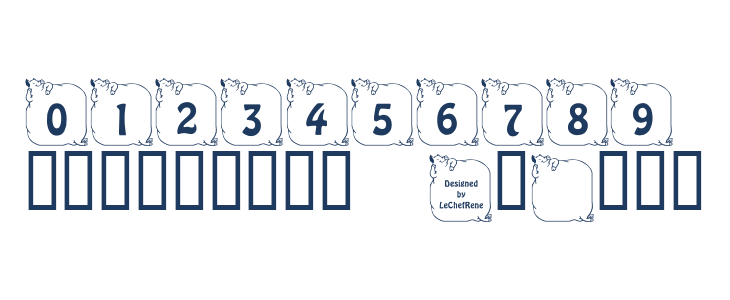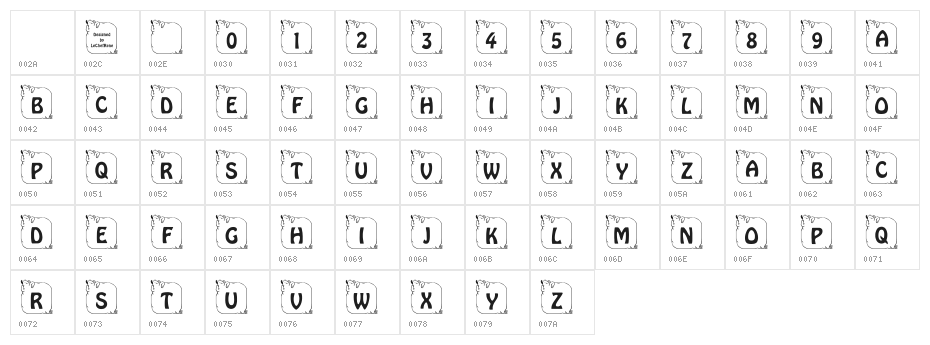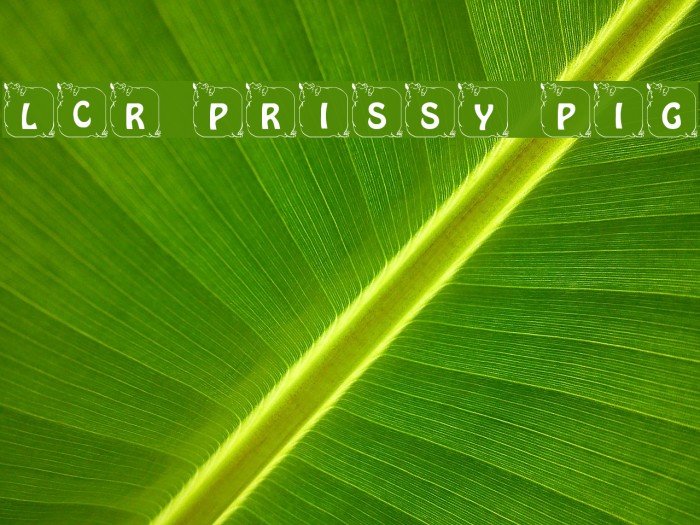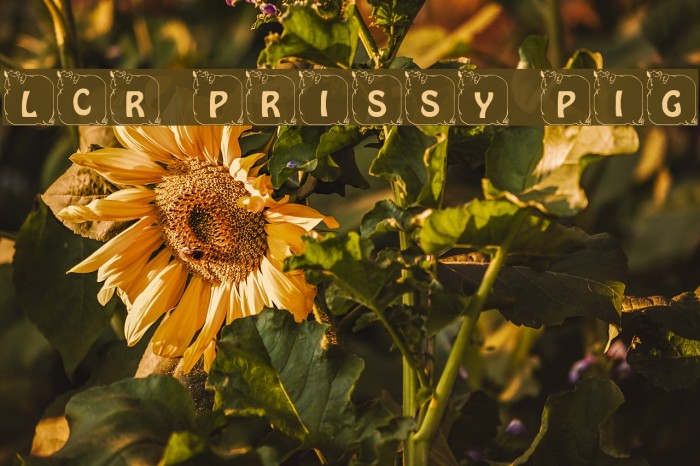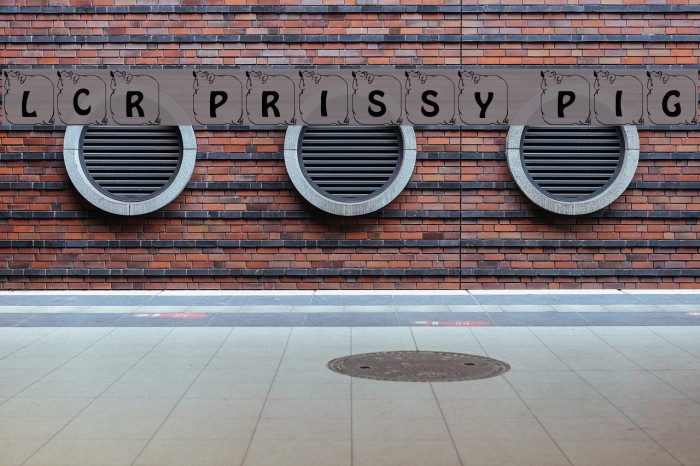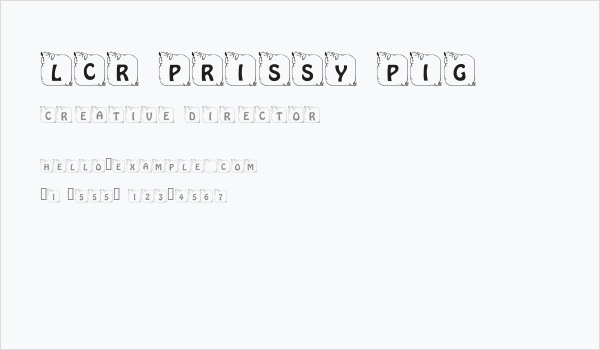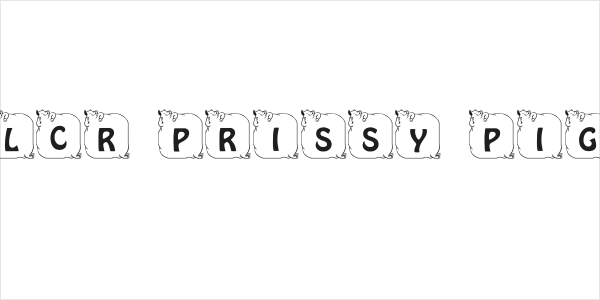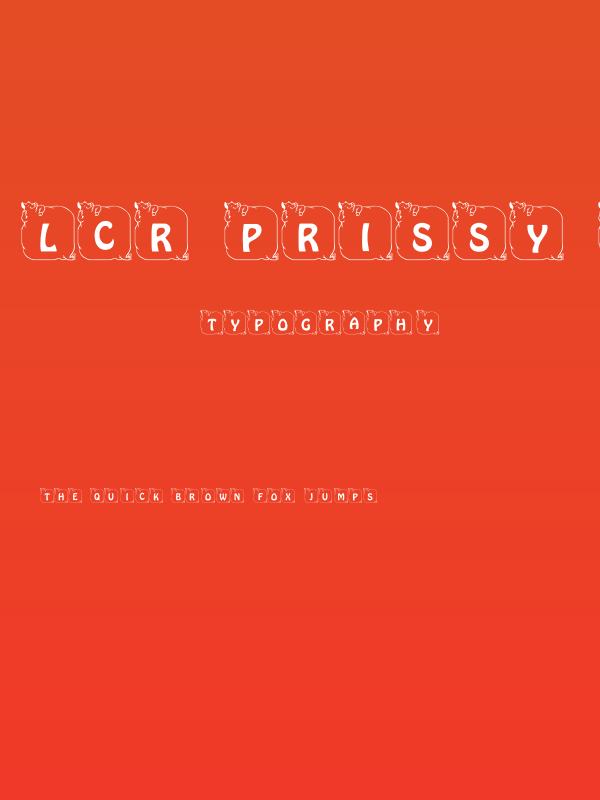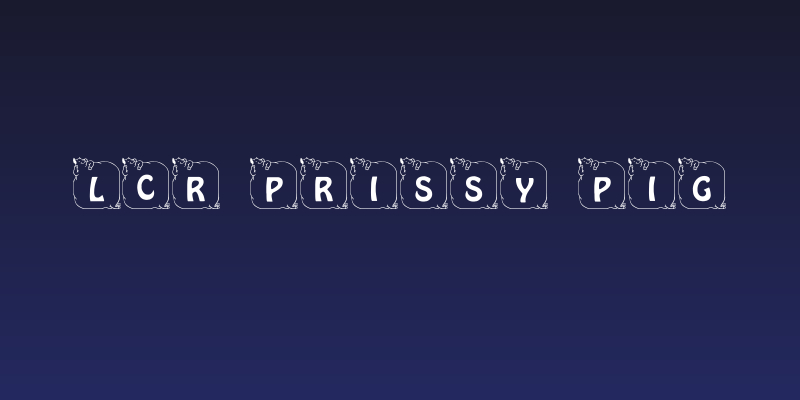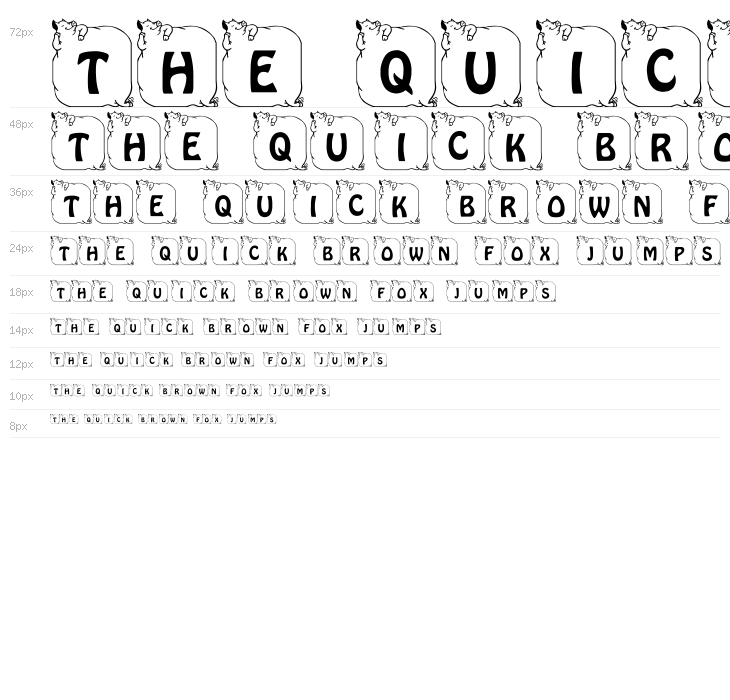
LCR Prissy Pig Font
LCR Prissy Pig Description
This playful and whimsical font features each character enclosed within a cartoonish pig outline, adding a humorous and light-hearted touch. The letters are bold and rounded, with a slightly informal style that conveys a sense of fun and creativity. The pig design surrounding each character is consistent, providing a unique and cohesive look. This font is ideal for projects that aim to capture attention with a quirky and entertaining aesthetic. The characters are well-defined, ensuring readability while maintaining the playful theme.
| Proposed Projects | Ideal for children's books, playful branding, party invitations, and any project needing a fun, light-hearted touch. |